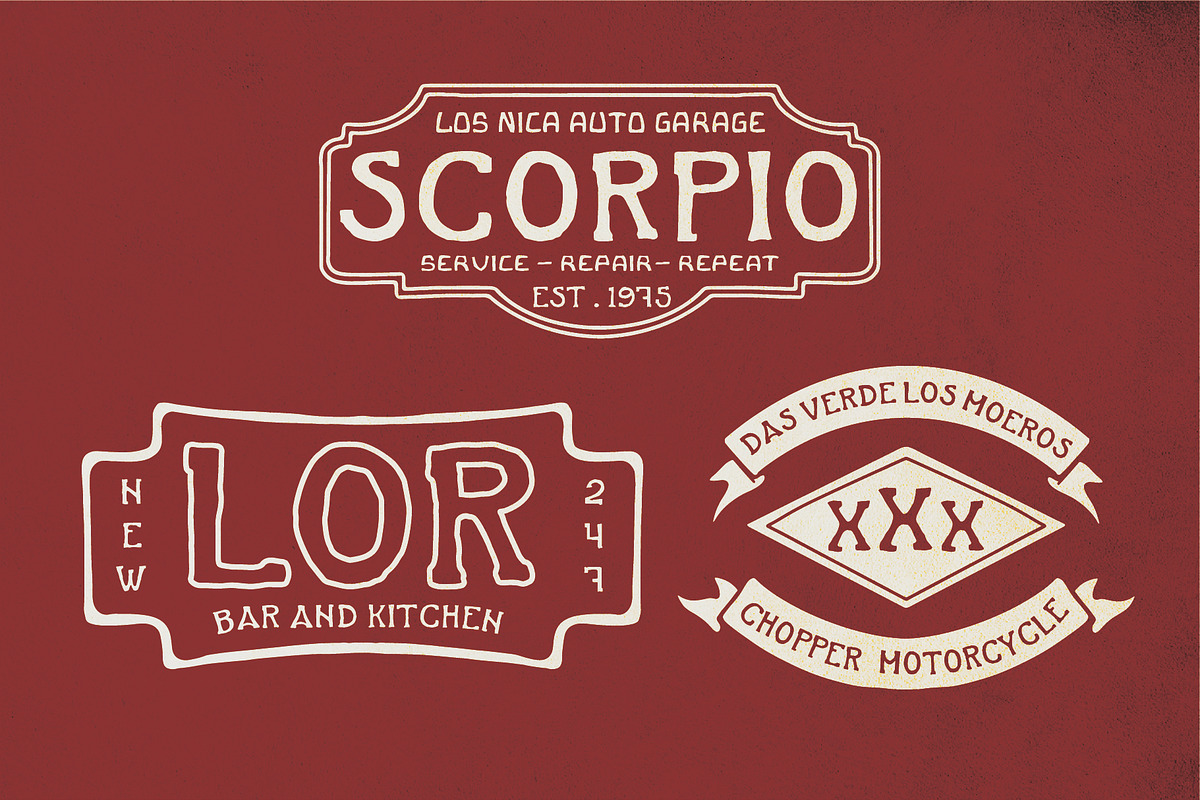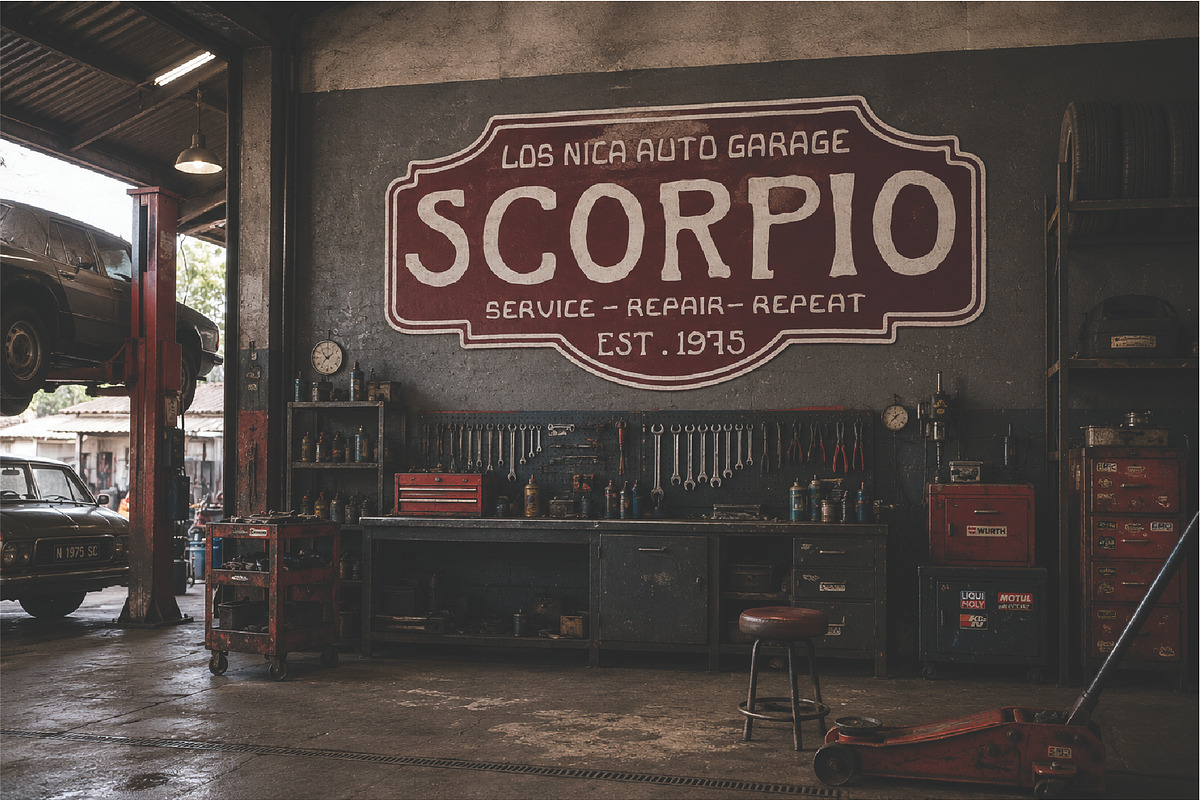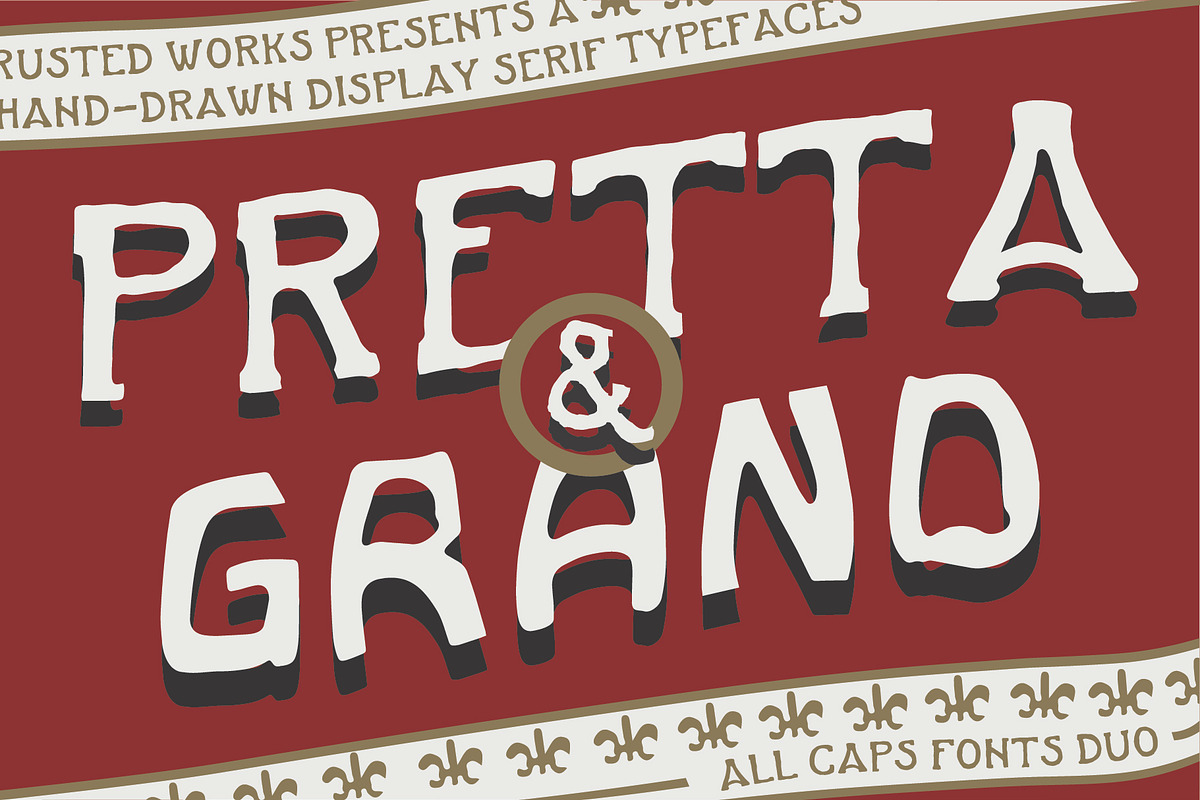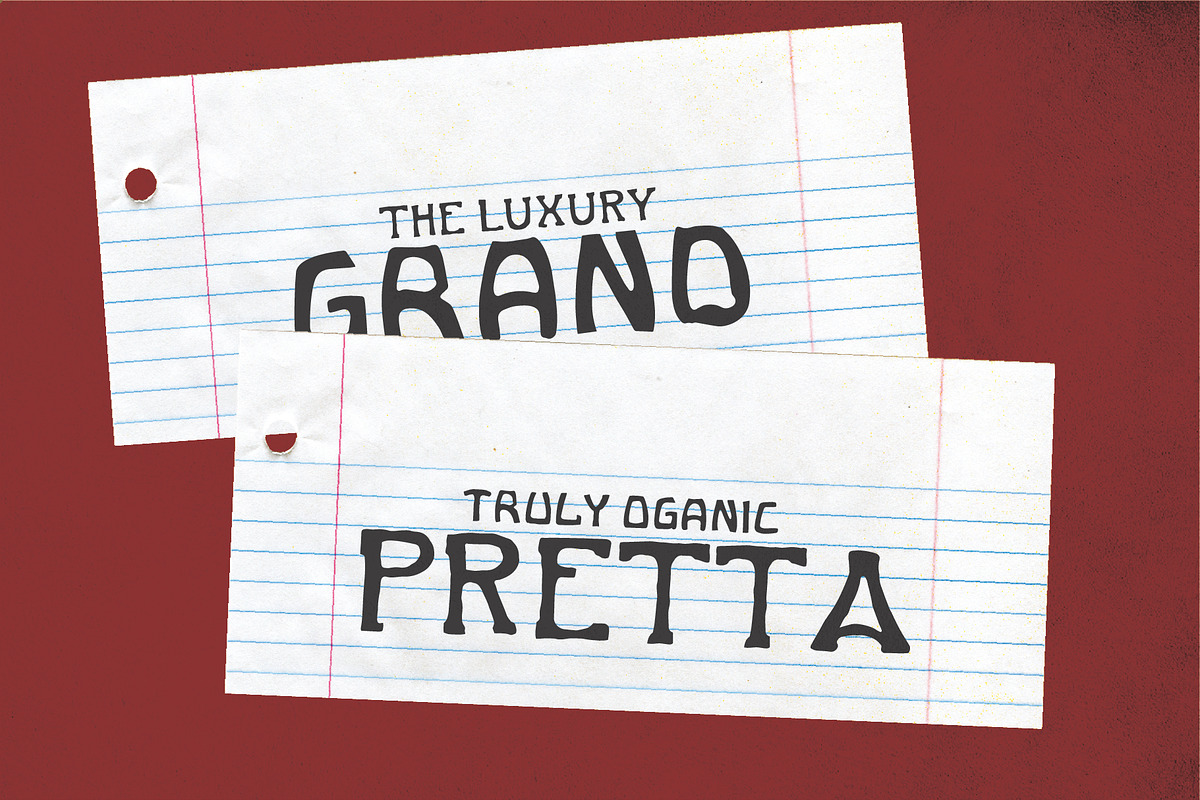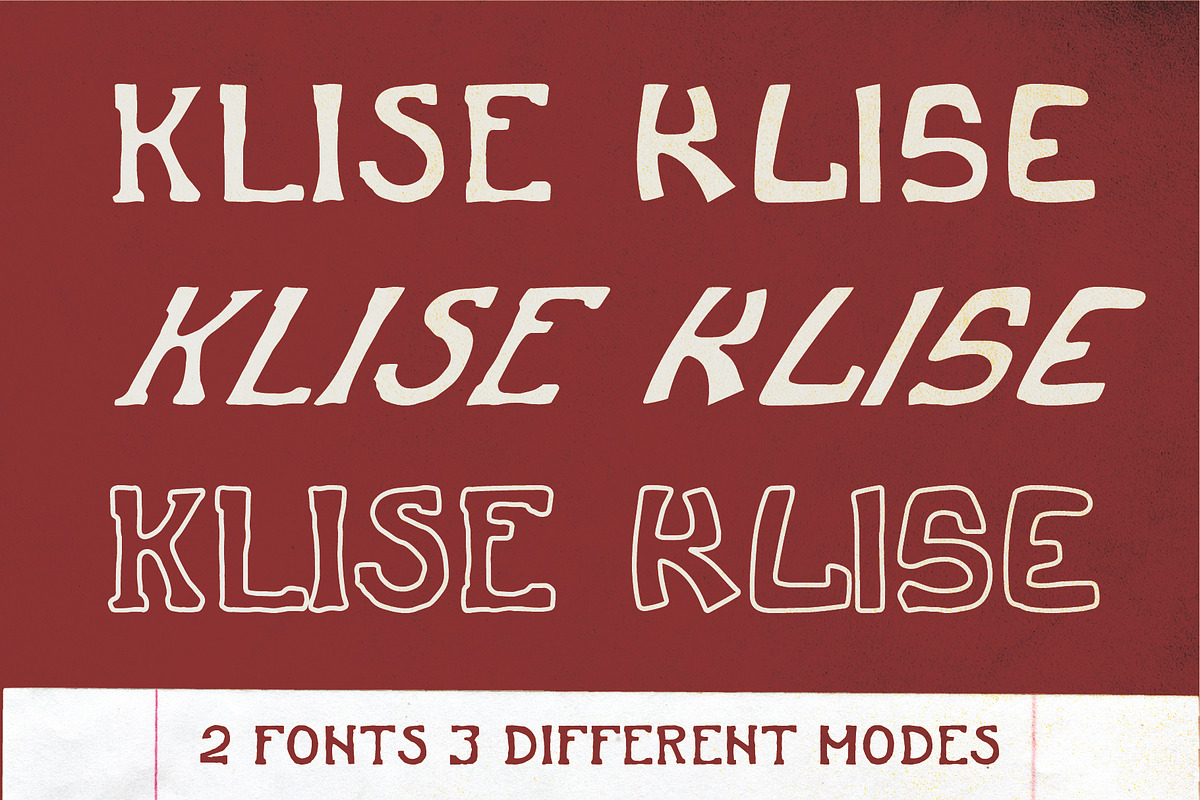
PRETTA & GRAND - DISPLAY DUO
PRETTA & GRAND is a hand-drawn display duo font inspired by pop vintage charm spirit of Warhol Artwork. Born from the rhythm of campbells packaging— this font captures the vintage fluidity and pop character.
Originally created for 80's die-hard organic display fonts.
2 in 1 (lowercase & uppercase mode)
A–Z uppercase (some alternates)
Numbers 0–9
Basic punctuation